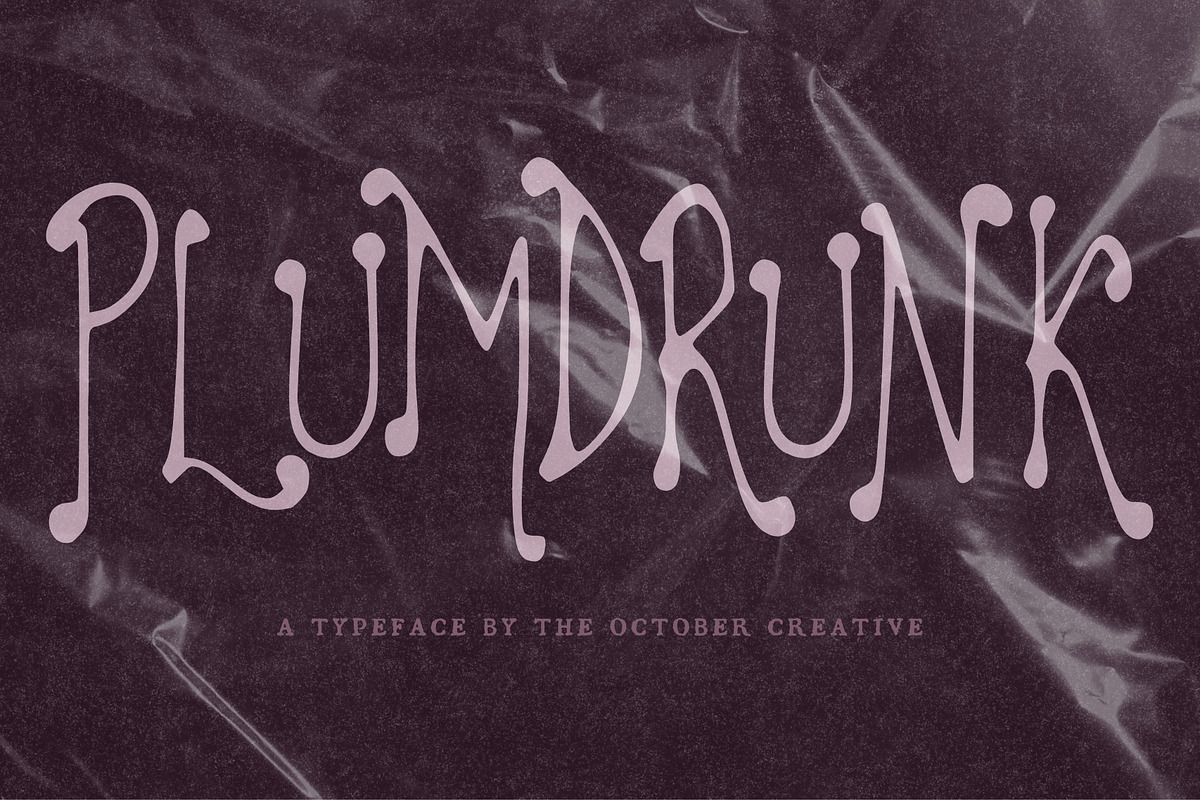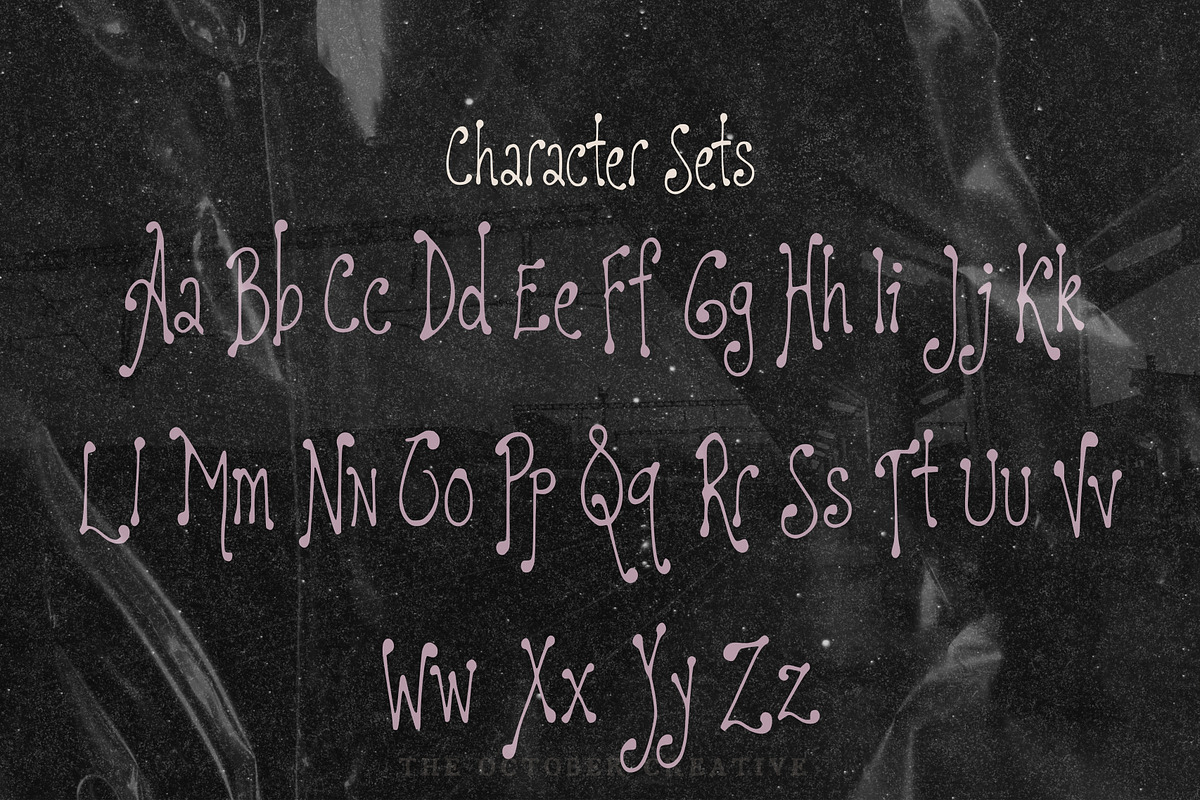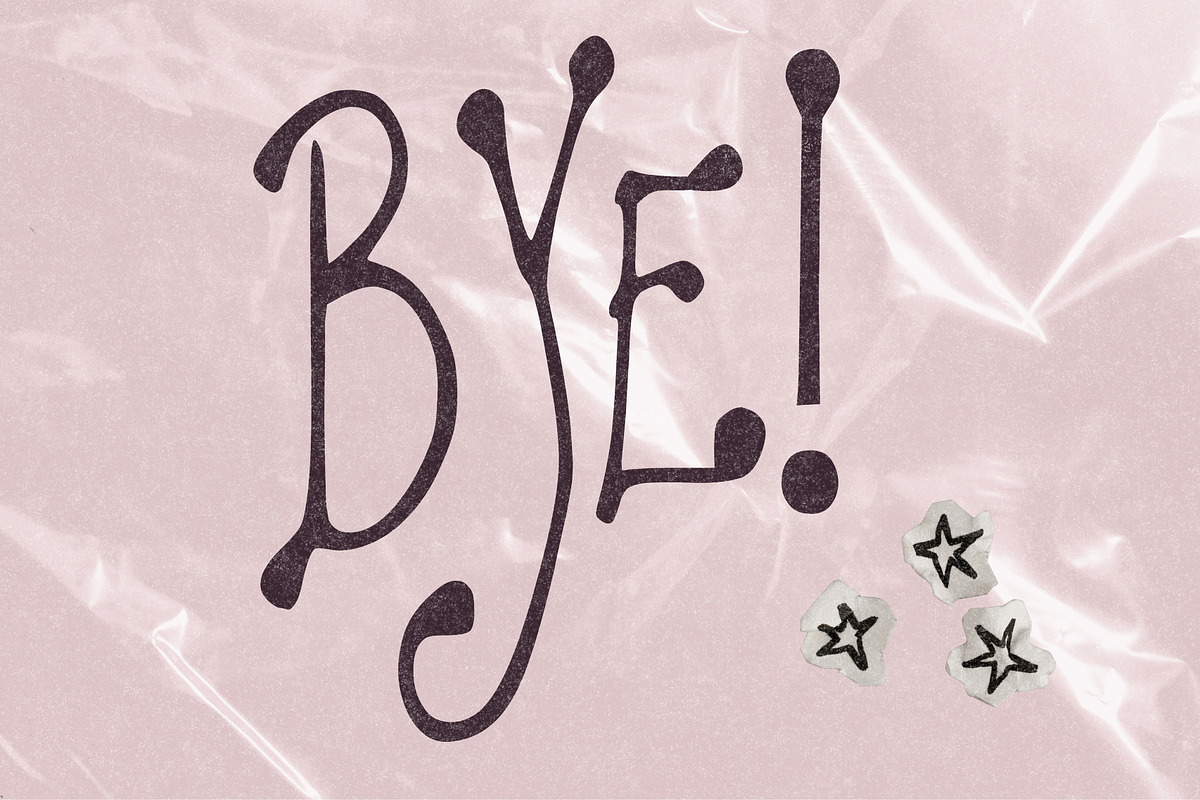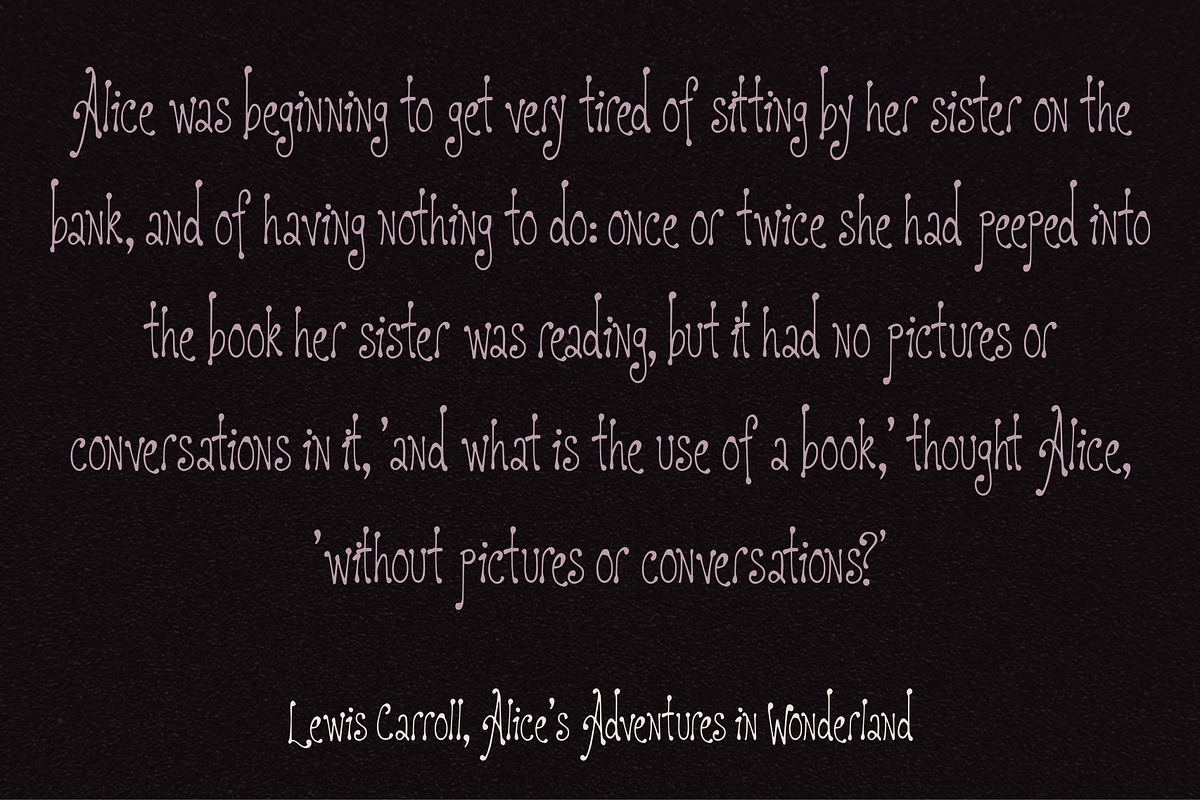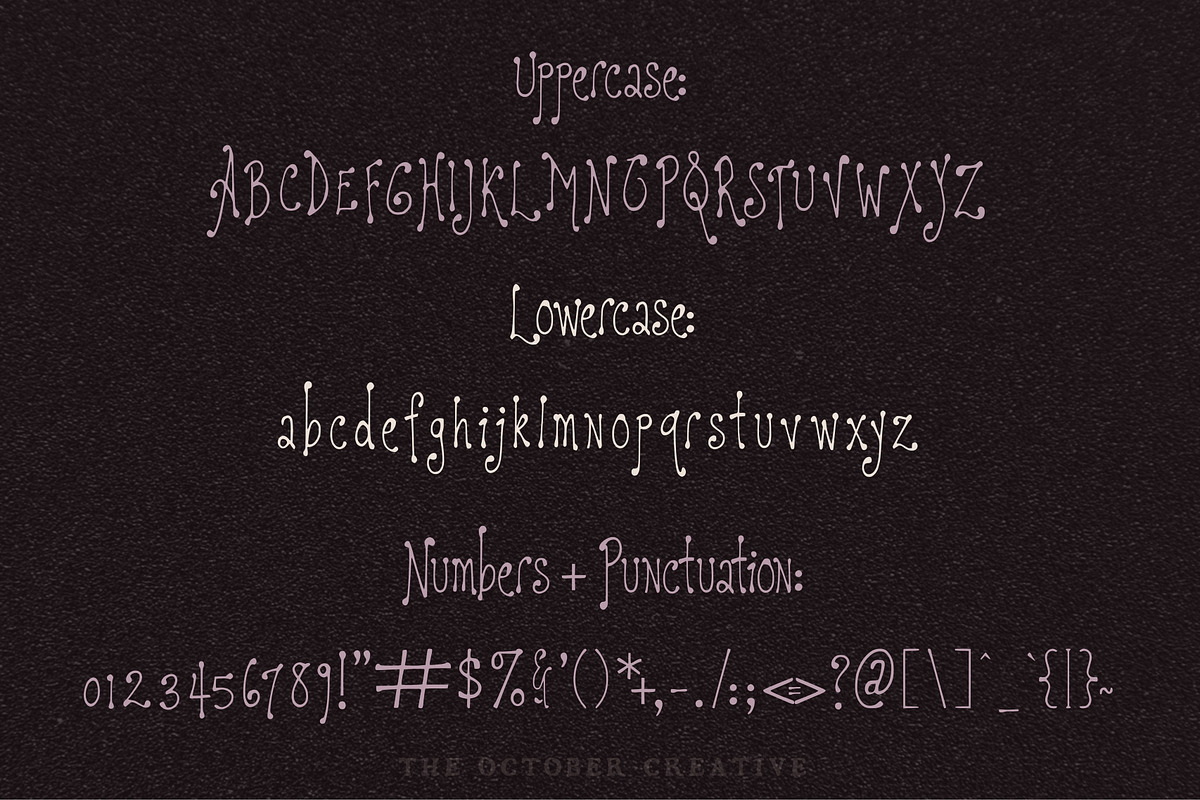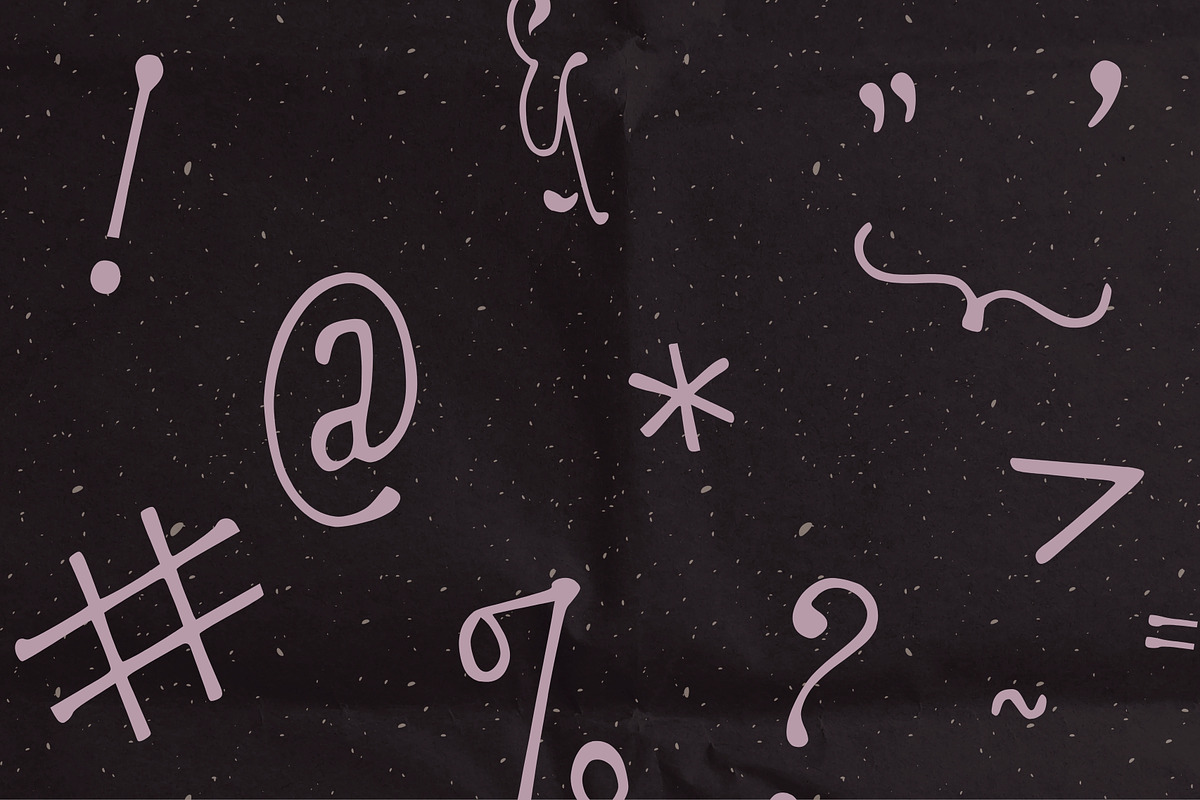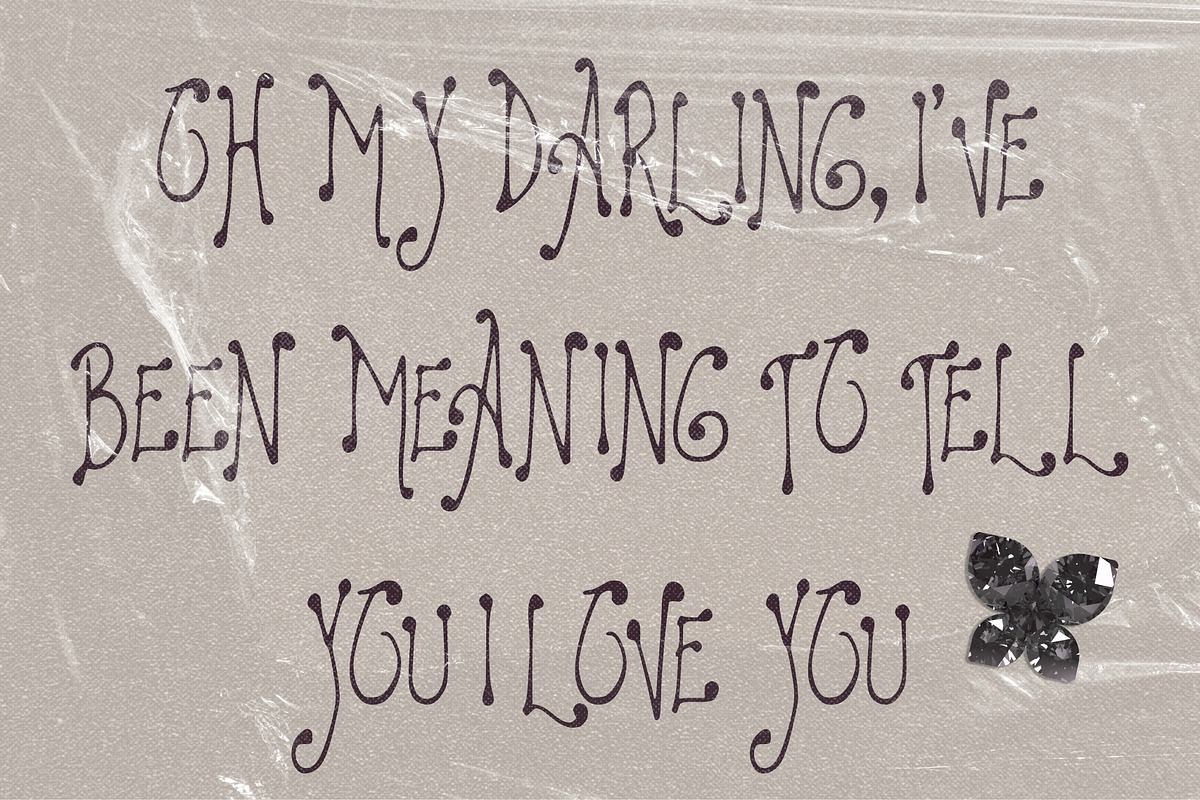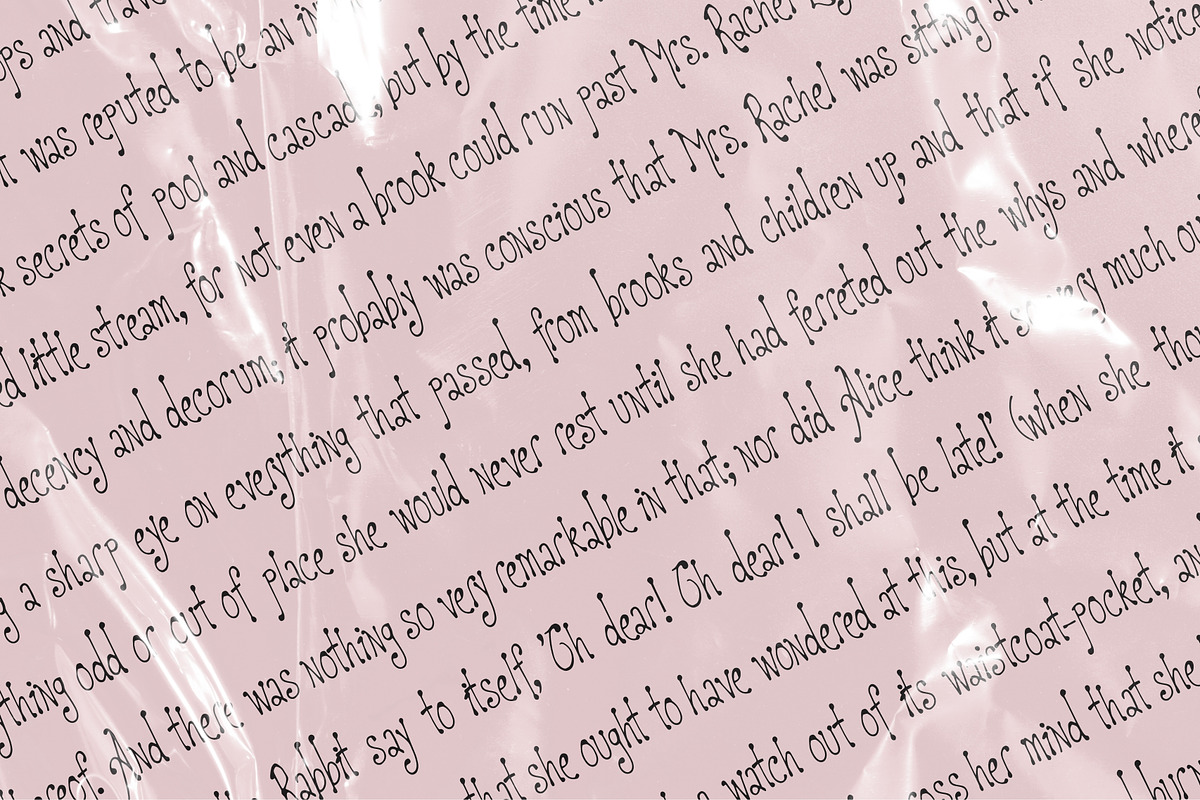
Plumdrunk Slender Display Font
Plumdrunk is a slender display font with slim upright letters, small curls at the tops, and a gentle wobble through the line. It fits jam and jar labels, small-batch packaging, market signage, and product tags.
CHARACTER SET
Uppercase A to Z, lowercase a to z, numerals 0 to 9, and every standard keyboard punctuation mark and symbol: ! " # $ % & ' ( ) * + , - . / : ; < = > ? @ [ \ ] ^ _ ` { | } \~
Curly quotes and apostrophes (‘ ’ “ ”), en and em dashes, an ellipsis, and a bullet.
Accented letters: À Á Â Ã Ä Å Ç È É Ê Ë Ì Í Î Ï Ñ Ò Ó Ô Õ Ö Ù Ú Û Ü and their lowercase forms.
LANGUAGES SUPPORTED
English, plus the accented vowels, Ñ, and Ç used in names and everyday words in Spanish, French, Italian, Portuguese, German, and Dutch. Not included: ß, Æ, Ø, Œ, and the upside-down ¿ and ¡.
SPECIAL CHARACTERS